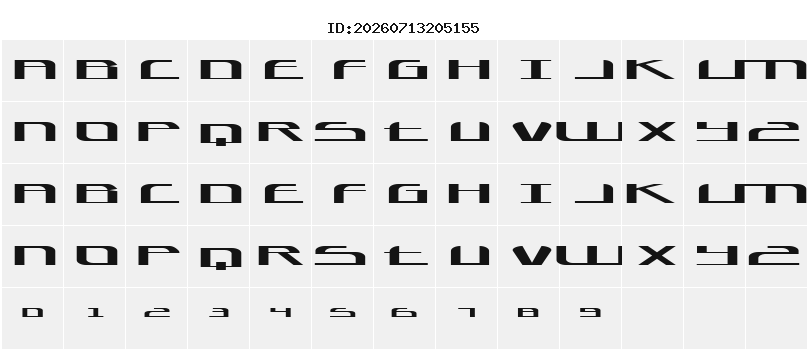
• Font Name: Cancer
Cancer.ttf is a modern, elegant sans-serif font designed for ultimate readability and visual harmony. Perfect for branding, headlines, web design, and print materials.